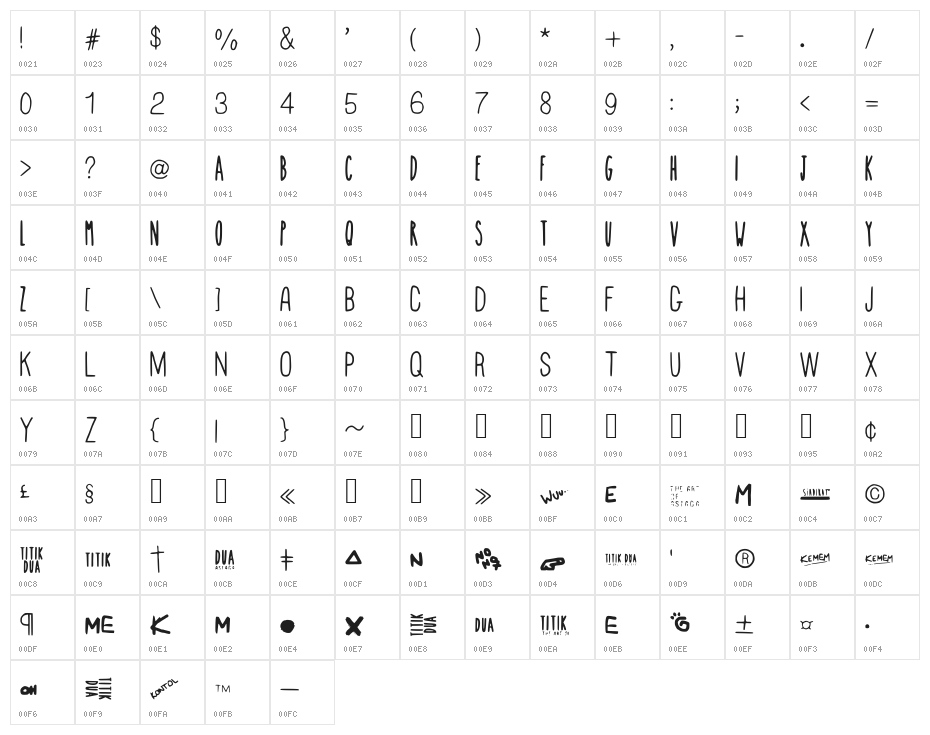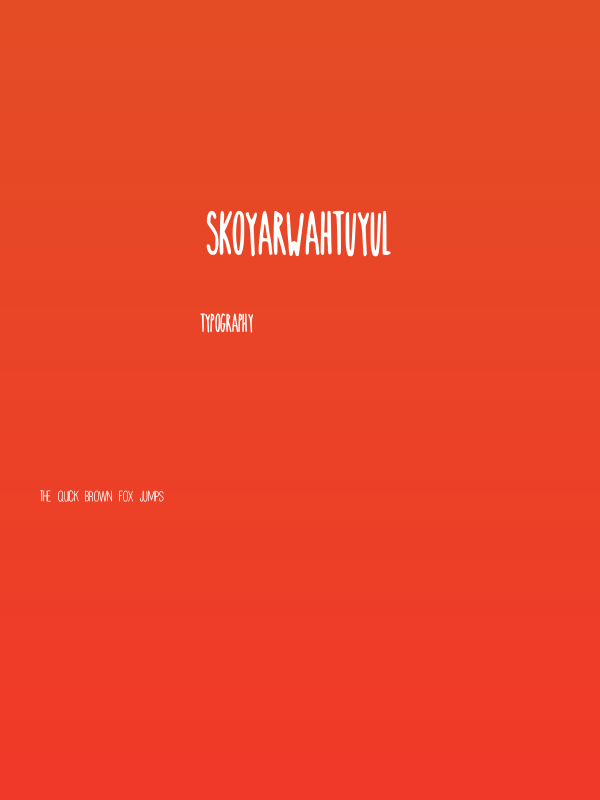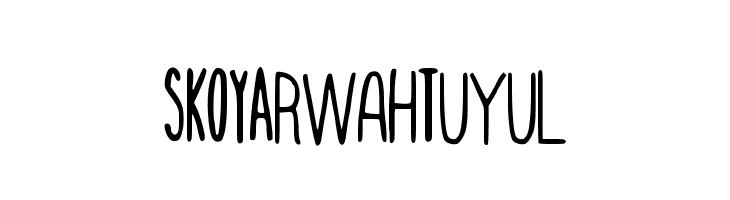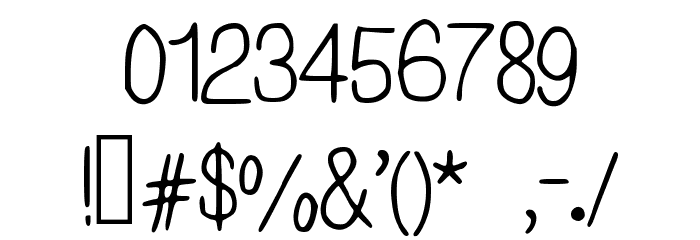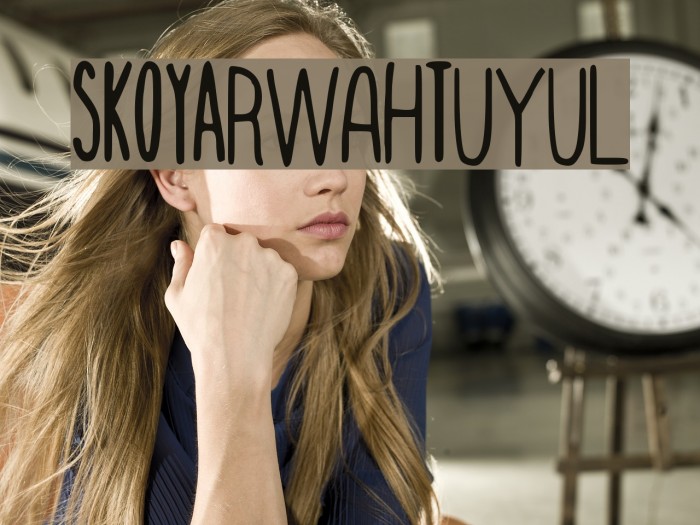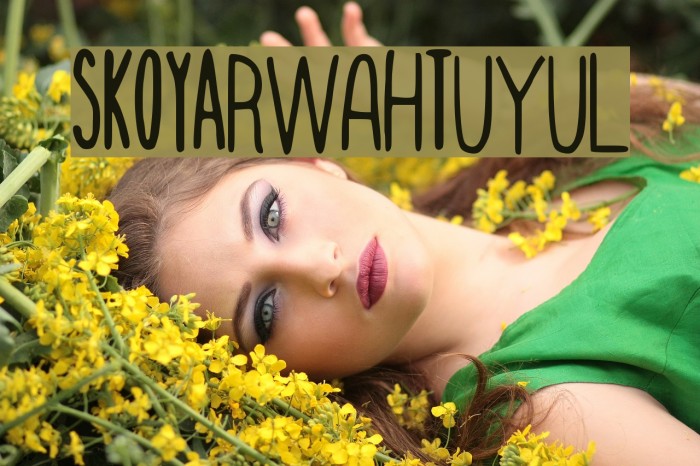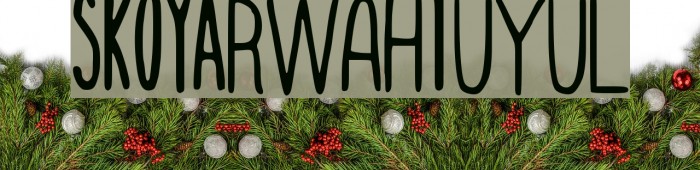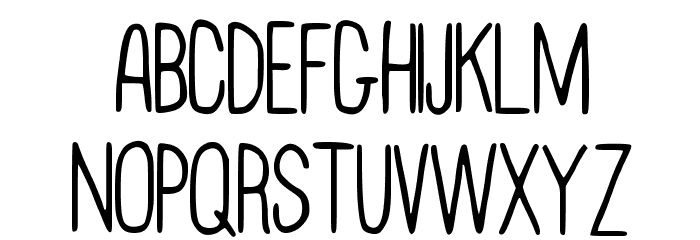
SKOYArwahTuyul Font
SKOYArwahTuyul Description
This font features a playful and casual handwritten style with a slightly elongated form. The uppercase letters are tall and narrow, giving a sense of height and elegance, while the lowercase letters maintain a consistent flow with rounded edges. The numbers are clear and easy to read, matching the overall style of the alphabet. Special characters are distinct and maintain the same playful aesthetic. This font is suitable for projects that require a friendly and approachable look, such as children's books, casual invitations, or creative branding.
| Width | Condensed |
| Overall Style | Playful |
| Proposed Projects | Ideal for children's books, casual invitations, creative branding, and playful design projects. |